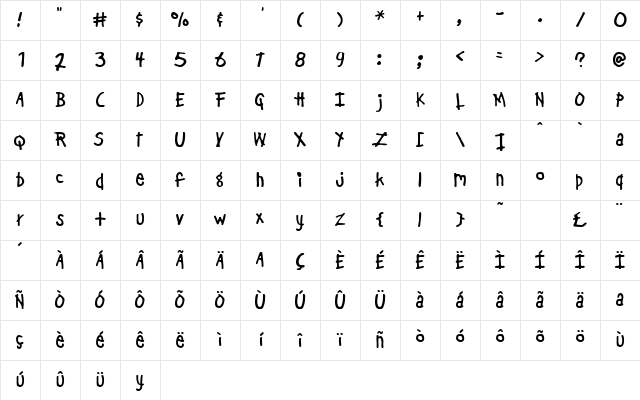
BadDog Regular Free Font
BadDog Regular
Design Context for BadDog
BadDog is a composed and adaptable typeface that performs quietly and consistently across a wide range of design contexts.